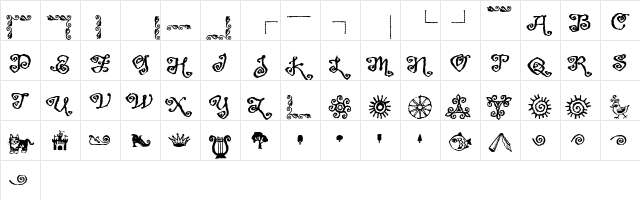
GreymantleExtras Regular
Design Context for GreymantleExtras Typeface
GreymantleExtras is a composed and adaptable typeface that performs quietly and consistently across a wide range of design contexts.